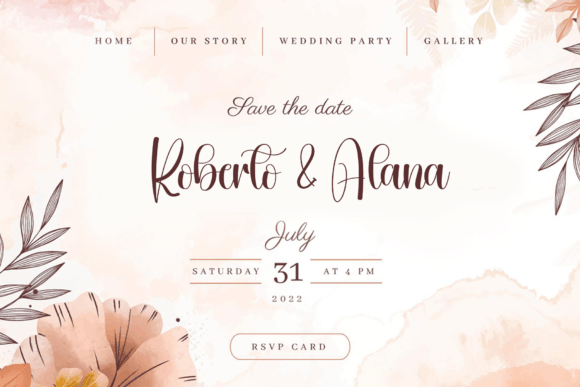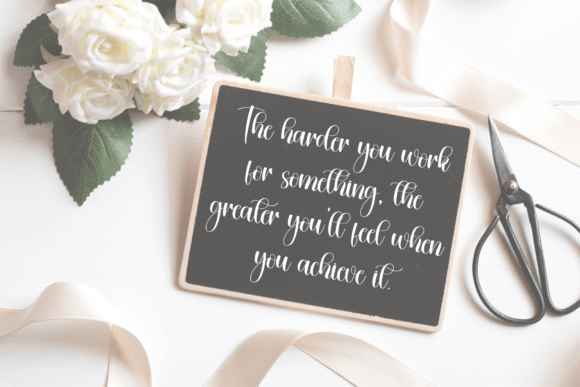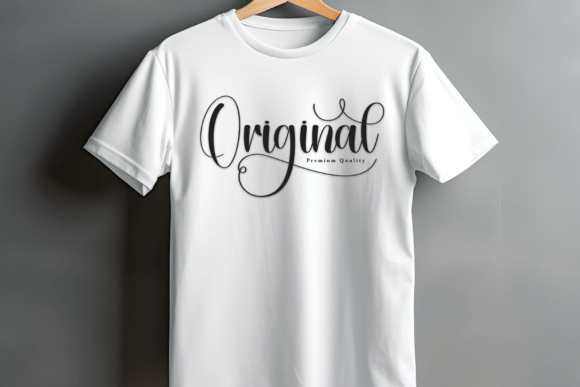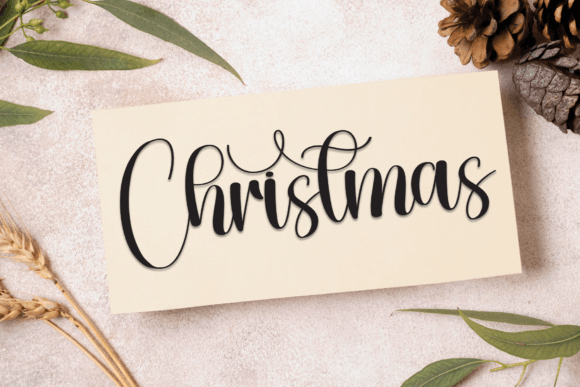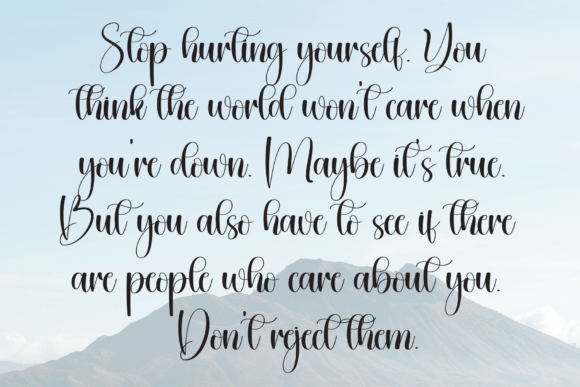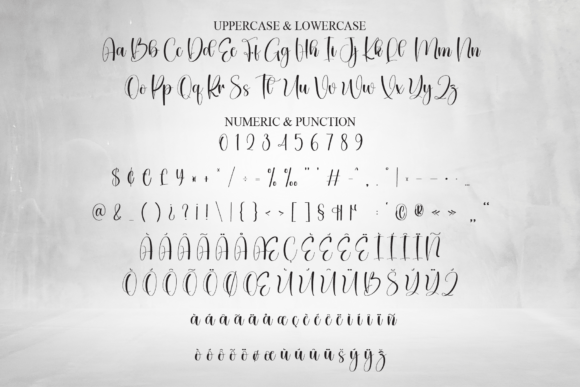
The Graydents Font: A Smooth and Stylish Handwritten Script
Have you ever been in the middle of a design project, and suddenly, you’re stuck on finding the perfect font? I recall a recent experience where I was working on a wedding invitation design, and my client specifically asked for a font that exuded warmth, elegance, and a personal touch. After scouring through numerous font libraries, I stumbled upon the Graydents font, and it instantly became the perfect fit. In this article, we’ll dive into the world of Graydents, exploring its features, uses, and what makes it a fantastic addition to any design project.
A Personal Review: What I Love About Graydents
Graydents is a smooth and stylish handwritten script font that boasts a natural, flowing look. Here are some aspects that I absolutely love about this font:
- ✨ Smooth Connections: The letters in Graydents connect softly, giving it a personal and friendly feel that’s perfect for invitations, logos, and personal notes.
- ✅ Warm and Elegant: This font adds a warm, elegant touch to any design, making it suitable for a wide range of projects, from wedding invitations to branding materials.
- 💫 Versatile: Graydents is highly versatile and can be used for both digital and print projects, making it a great addition to any designer’s toolkit.
While Graydents is an excellent font, there are a few minor quirks to be aware of:
- 🤔 Limited Use in Small Sizes: Like many script fonts, Graydents may not be the best choice for very small font sizes, as some details may get lost.
- ⚠️ Kerning Adjustments: Some users might need to make manual kerning adjustments to ensure optimal letter spacing, particularly in words with tricky letter combinations.
The Inspiration Behind Graydents
Graydents was inspired by the beauty of handwritten scripts and the desire to create a font that feels both personal and elegant. The designer aimed to craft a font that would serve as a bridge between traditional calligraphy and modern digital typography, resulting in a versatile and stylish script font suitable for a wide range of applications.
Here are some frequently asked questions about Graydents:
- Q: Is Graydents suitable for body text?
- A: While Graydents is primarily designed for display and headline purposes, it can be used for short paragraphs of body text. However, for longer texts, a more straightforward font might be more readable.
- Q: Does Graydents support multiple languages?
- A: Graydents supports the English language and some other languages that use the Latin script. For specific language support, it’s best to check the font’s documentation.